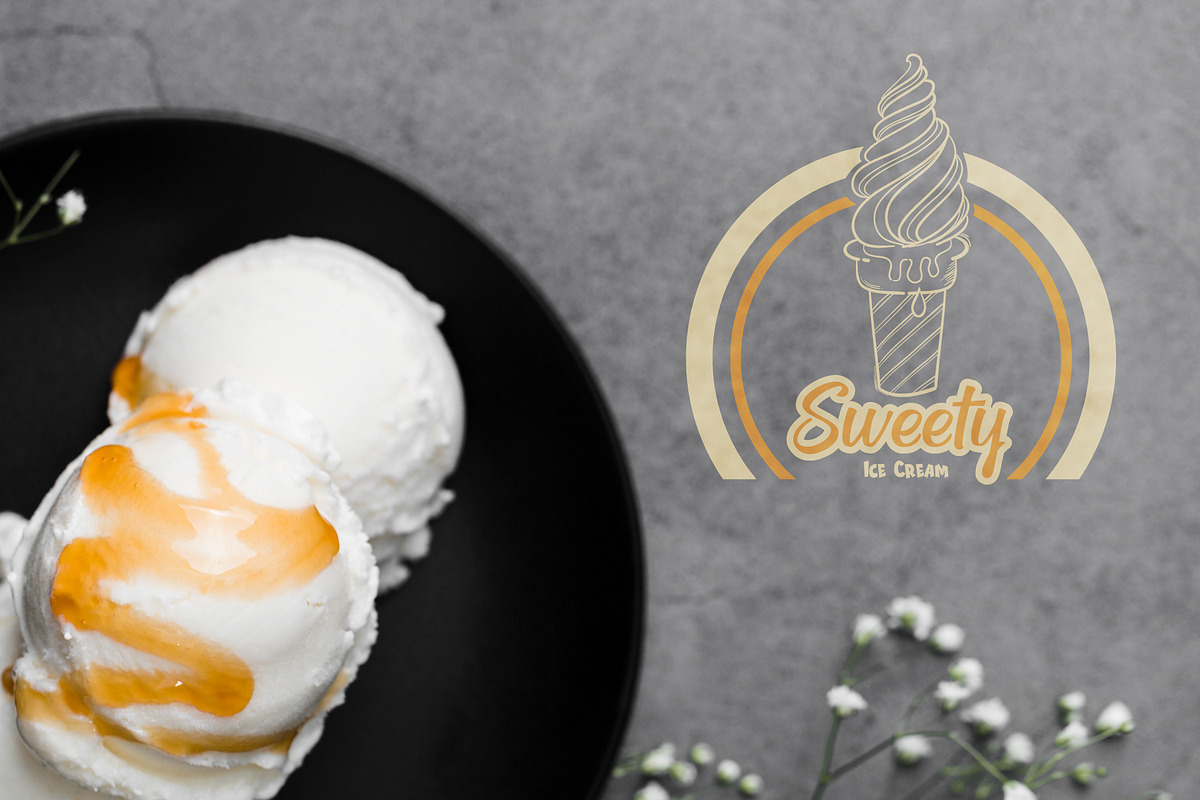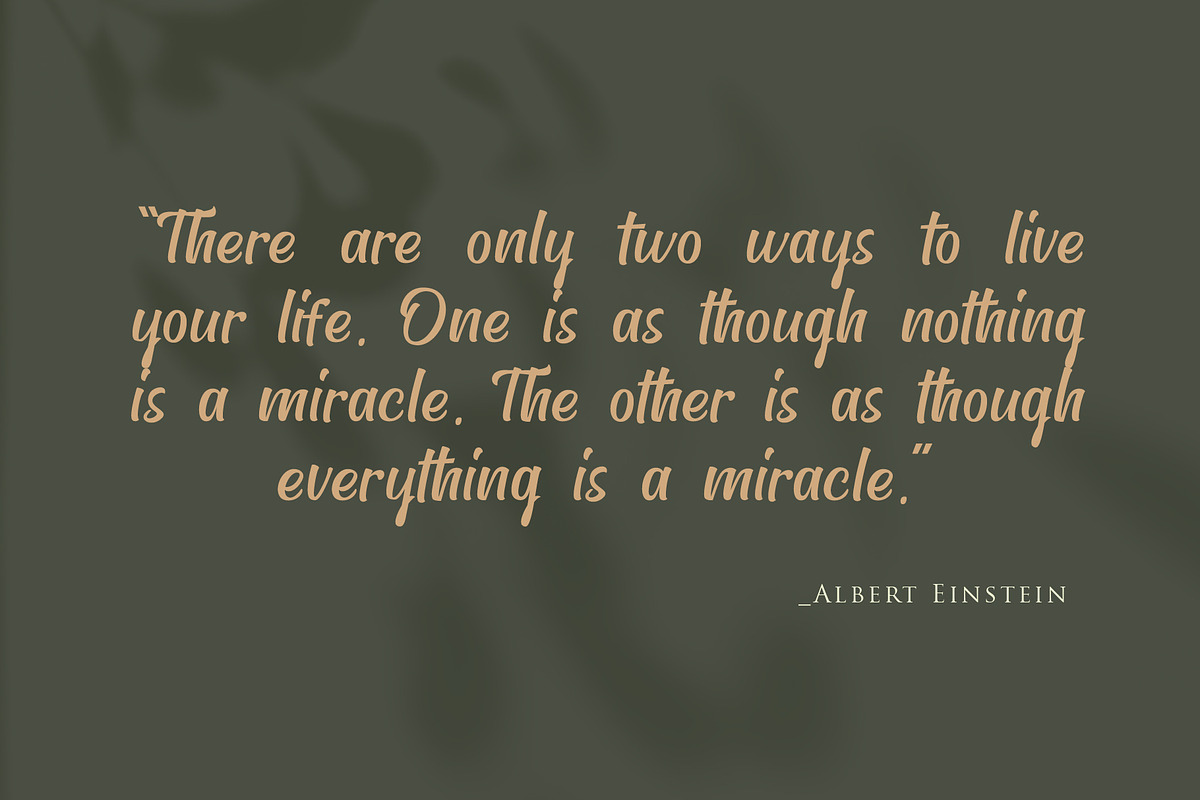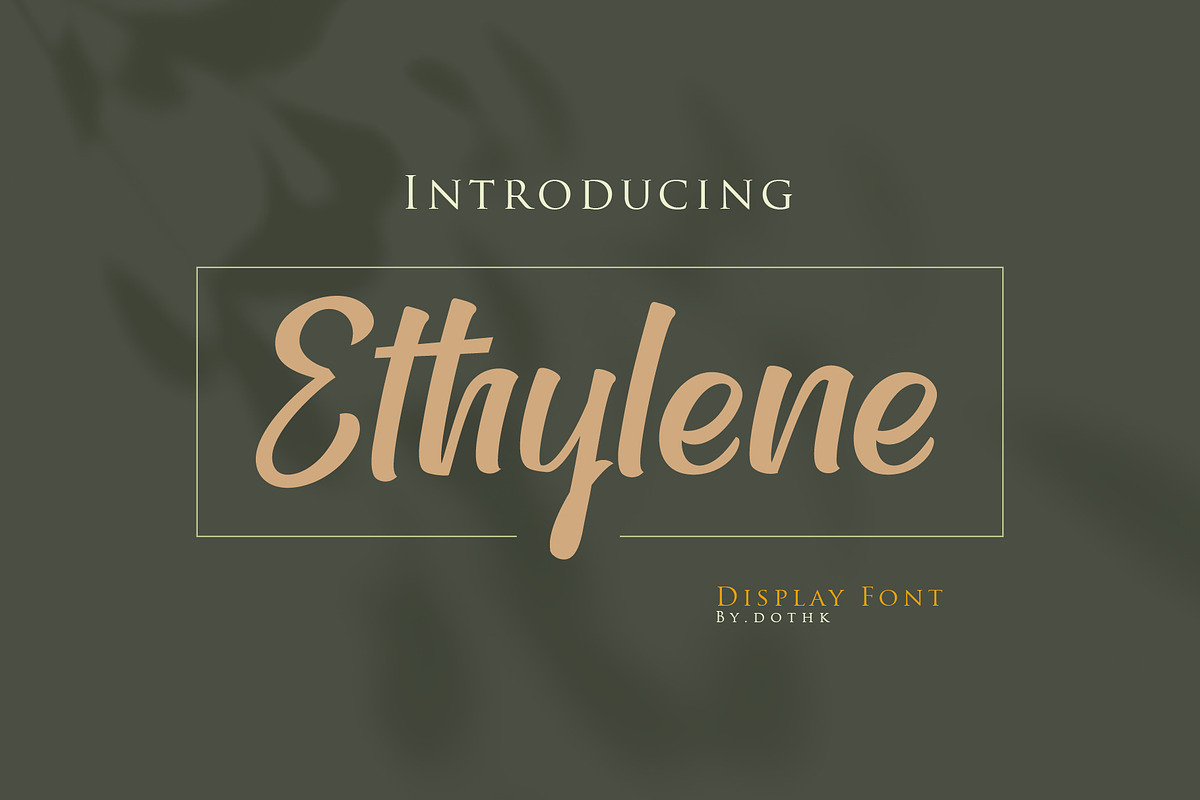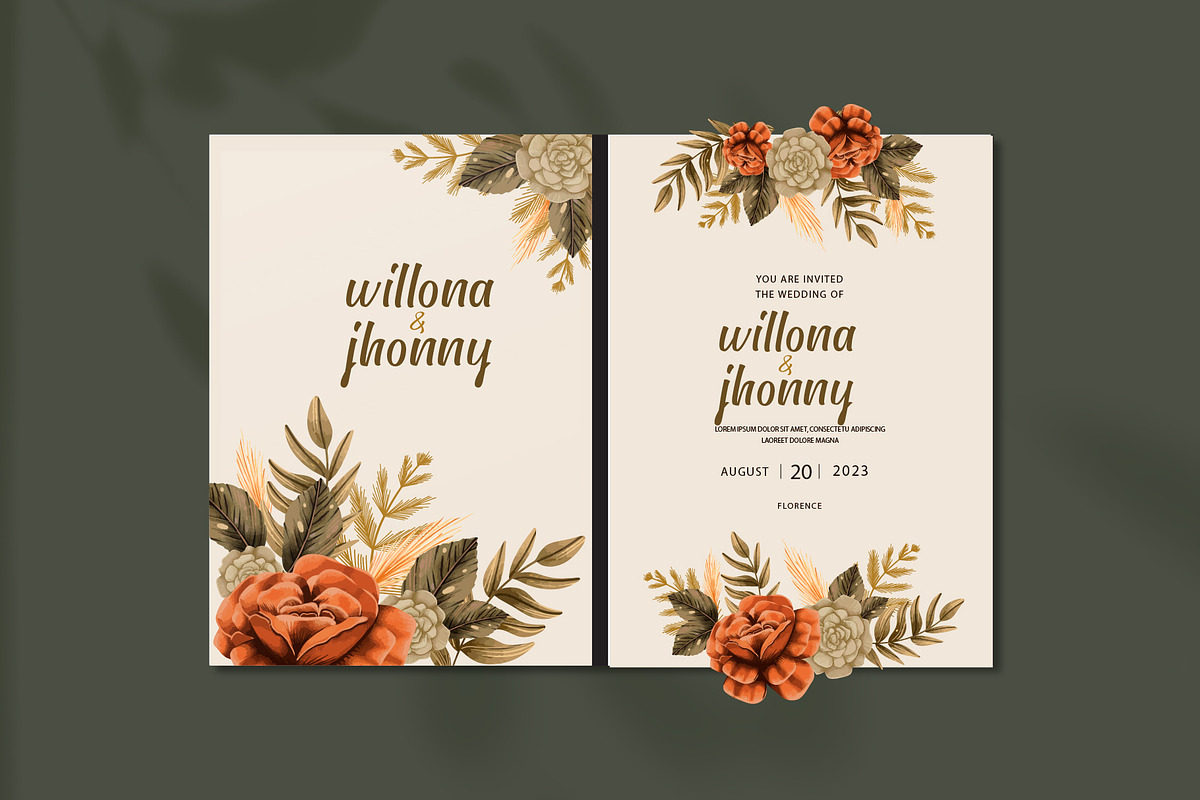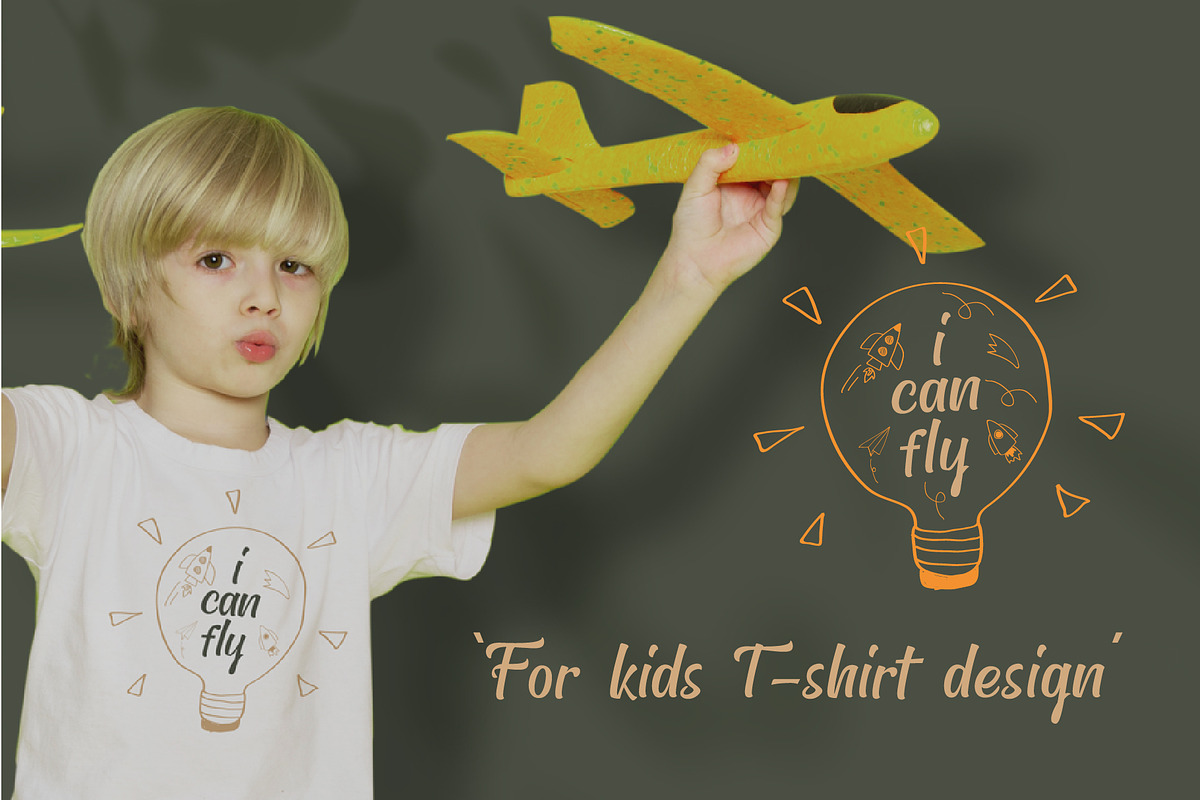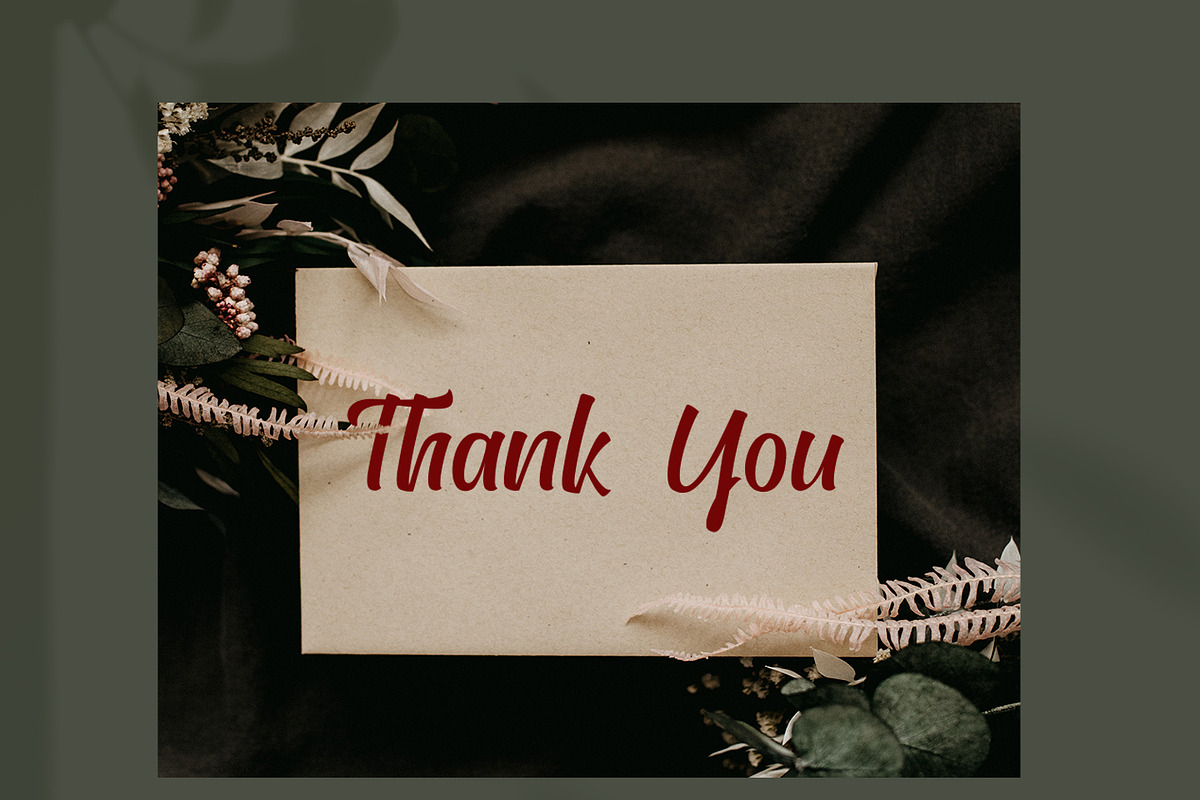
Ethylene
Ethylene Display Font comes with masculine themes. It matches applies in some designs such as the logotype, brand, packaging, quotes, music poster, t-shirt, cover book, and more custom design. The features uppercase, lowercase, numeral, punctuation & symbol, multilingual support.
Ethylene Display Font This font has been equipped with OpenType features and has many glyphs. and of course by having many of these glyphs will be able to choose the letters according to your liking, lots of variations and options for each letter, so you can customize your design choices and also have other languages supported.